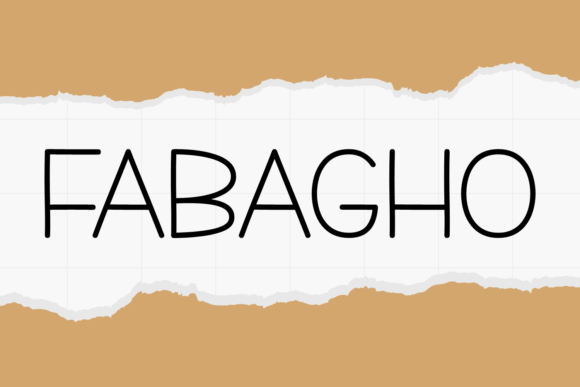
Step into a world of visual enchantment with Fabagho, the display font that captivates hearts and ignites creativity. Its playful spirit and friendly demeanor make it a perfect companion for your myriad projects, ready to add a touch of whimsy and charm to your designs.
Picture this: you're working on a social media campaign for a children's clothing brand. The challenge? Crafting visuals that capture the essence of childhood magic and lightheartedness. Fabagho swoops in like a superhero, bringing its quirky charm and playful personality to your designs. Watch as your social media feed transforms into a symphony of visual delight, capturing the attention of your target audience and leaving them utterly smitten.
Or perhaps you're an Etsy shop owner, pouring your heart and soul into creating handmade greeting cards that spread love and joy. With Fabagho as your font of choice, your cards become more than just pieces of paper; they transform into heartfelt expressions of affection, each letter carrying a touch of warmth and sincerity. Your customers won't just receive cards; they'll receive cherished keepsakes that speak to their hearts.
Fabagho isn't just limited to digital realms; it thrives in the world of physical print as well. Imagine your designs adorning t-shirts, tote bags, and mugs, proudly worn and carried by your customers. Fabagho's friendly charm adds a touch of personality to everyday items, turning them into conversation starters and expressions of individuality.
And let's not forget the world of logos and branding. Fabagho's clean and modern lines lend themselves effortlessly to creating memorable and distinctive logos that stand the test of time. Whether it's a playful logo for a toy store or a sophisticated mark for a tech company, Fabagho delivers a timeless aesthetic that resonates with audiences and sets your brand apart.
So, whether you're a seasoned designer or just starting your creative journey, Fabagho is the font you've been searching for—the font that ignites your imagination and transforms your designs into works of art. Embrace the magic of Fabagho and watch as your creativity flourishes like never before.